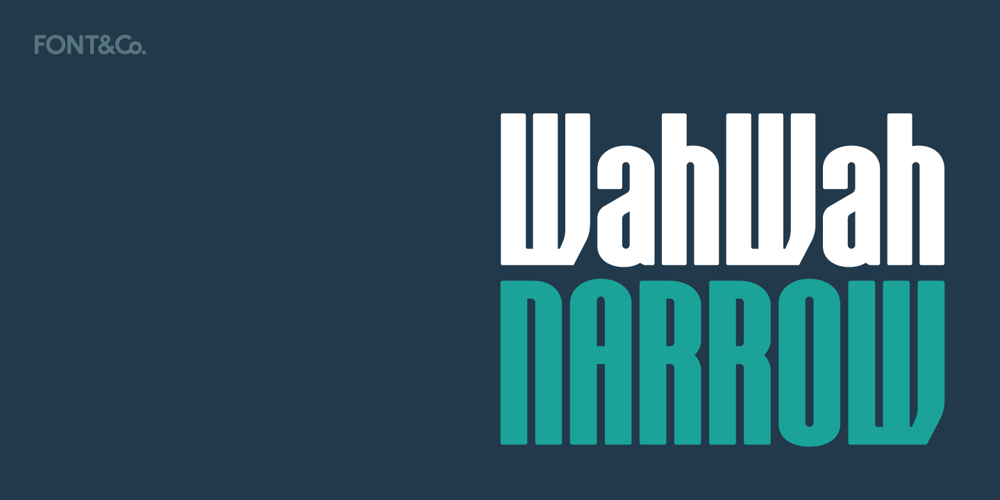
Wah Wah Narrow
Wah Wah Narrow font
Wah Wah Narrow Font Family was designed by Francesco Gianesini and published by Font&Co.. Wah Wah Narrow contains 1 styles and family package options. Wah Wah Narrow is a compact, eye-catching, flat-sided display font that will tightly pack the empty space in your layout!